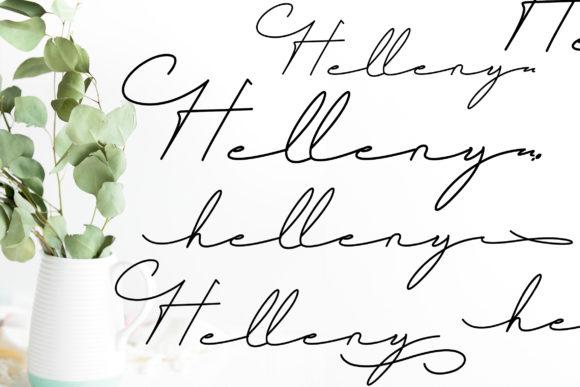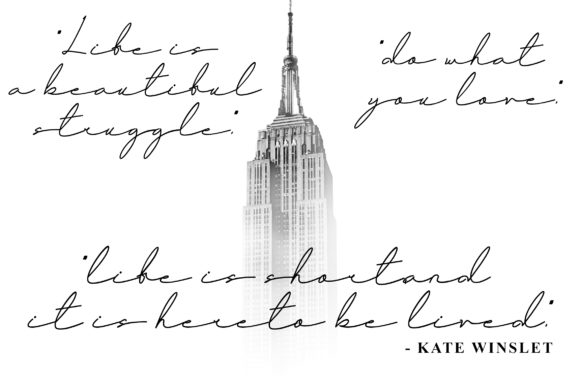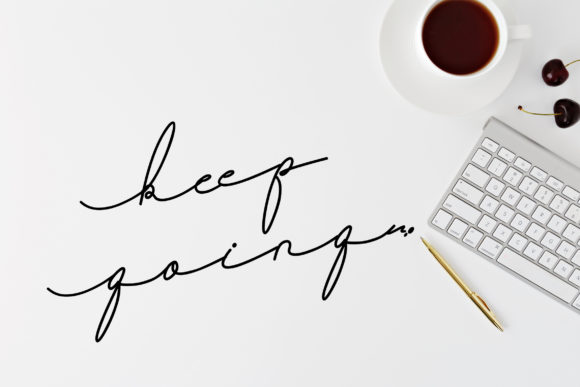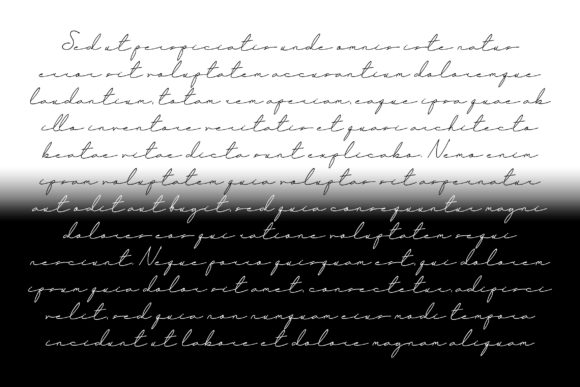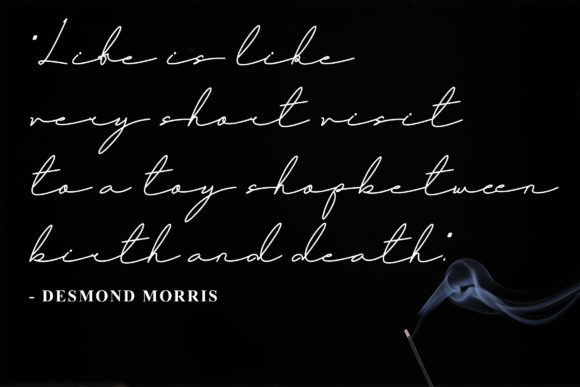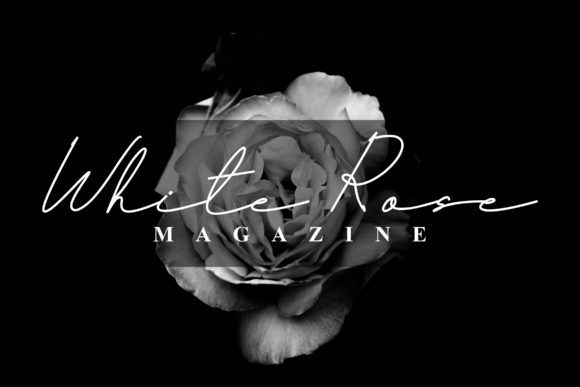
Helleny Font: Elevate Your Designs with a Modern Monoline Script
Helleny Font is a stunning monoline script that embodies the essence of modern design. With its thin and playful feel, this beautiful font is perfect for designers and crafters looking to add a touch of elegance and sophistication to their projects. In this article, we’ll dive into the world of Helleny Font, exploring its features, benefits, and uses, as well as provide tips on how to make the most of this versatile font.
The Beauty of Helleny Font
Helleny Font is a monoline script that boasts a unique and captivating aesthetic. Its thin lines and playful feel give it a modern vibe that’s hard to ignore. The font’s sleek and elegant design makes it perfect for a wide range of applications, from branding and advertising to packaging and digital media.
One of the standout features of Helleny Font is its versatility. It can be used in both uppercase and lowercase, making it ideal for headlines, titles, and body text. The font’s clean and minimalist design also ensures that it pairs well with a variety of other fonts, allowing designers to create stunning typography combinations.
Inspiration from Helleny Font
The modern vibe of Helleny Font is sure to inspire designers and crafters alike. Its unique blend of elegance and playfulness makes it perfect for projects that require a touch of sophistication and whimsy. Whether you’re working on a luxury brand campaign or a craft project, Helleny Font is sure to spark your creativity.
Imagine using Helleny Font to create a stunning logo for a fashion brand, or to add a touch of elegance to a wedding invitation. The font’s versatility and beauty make it an excellent choice for a wide range of applications, from digital media to print materials.
Benefits of Using Helleny Font
So, what are the benefits of using Helleny Font in your designs? Here are just a few:
- Unique and eye-catching: Helleny Font’s modern vibe and playful feel make it a standout in any design.
- Versatile: The font can be used in both uppercase and lowercase, making it perfect for a wide range of applications.
- Elegant and sophisticated: Helleny Font’s sleek and minimalist design makes it perfect for luxury brands and high-end projects.
- Easy to pair: The font’s clean design makes it easy to pair with other fonts, allowing designers to create stunning typography combinations.
Tips for Using Helleny Font
Helleny Font is a beautiful monoline script that’s sure to elevate your designs. With its modern vibe, thin and playful feel, and versatility, this font is perfect for designers and crafters looking to add a touch of elegance and sophistication to their projects. Whether you’re working on a luxury brand campaign or a craft project, Helleny Font is sure to inspire your creativity and help you create stunning designs.